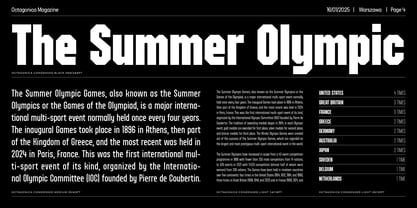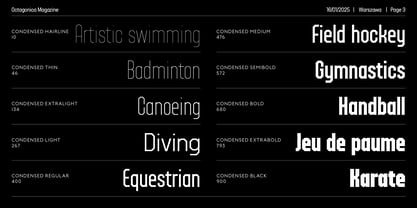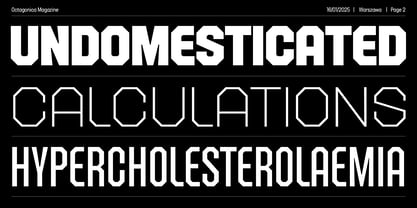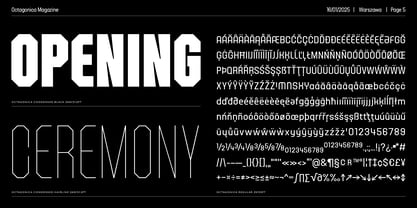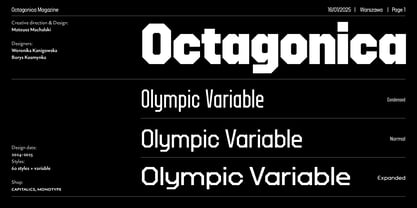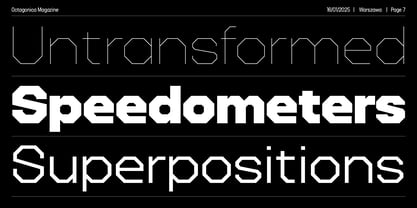
Octagonica
by Machalski
The Octagonica Font Family was designed by Mateusz Machalski and published by Machalski. Octagonica contains 60 styles and family package options. More about this family
Octagonica is a modern typeface inspired by the geometry and aesthetics of 20th century sports posters. It was created for designers looking for a form that is dynamic, compact and expressive – ideal for use in corporate identity, information systems and posters. The design of the letters is based on a rigorous grid, where rhythmic modules dominate. The letters have something of the numbers on jerseys, stadium signs, but also historical affishes advertising sporting events. Thanks to variable font technology, the user can seamlessly control the thickness, width and expression of the letters. From the precise, technical hairline condensed version to the heavy and monumental black expanded, the typeface adapts to the needs of the project. This flexibility makes it not only an aesthetic choice, but also a practical tool. Octagonica combines structure and energy. It is a typeface that speaks loudly but precisely. Created to convey emotion, to act in motion and to have an impact on a large scale – in both physical and digital spaces. Design Team: Mateusz Machalski & Weronika Kanigowska
Designers: Mateusz Machalski
Foundry: Machalski